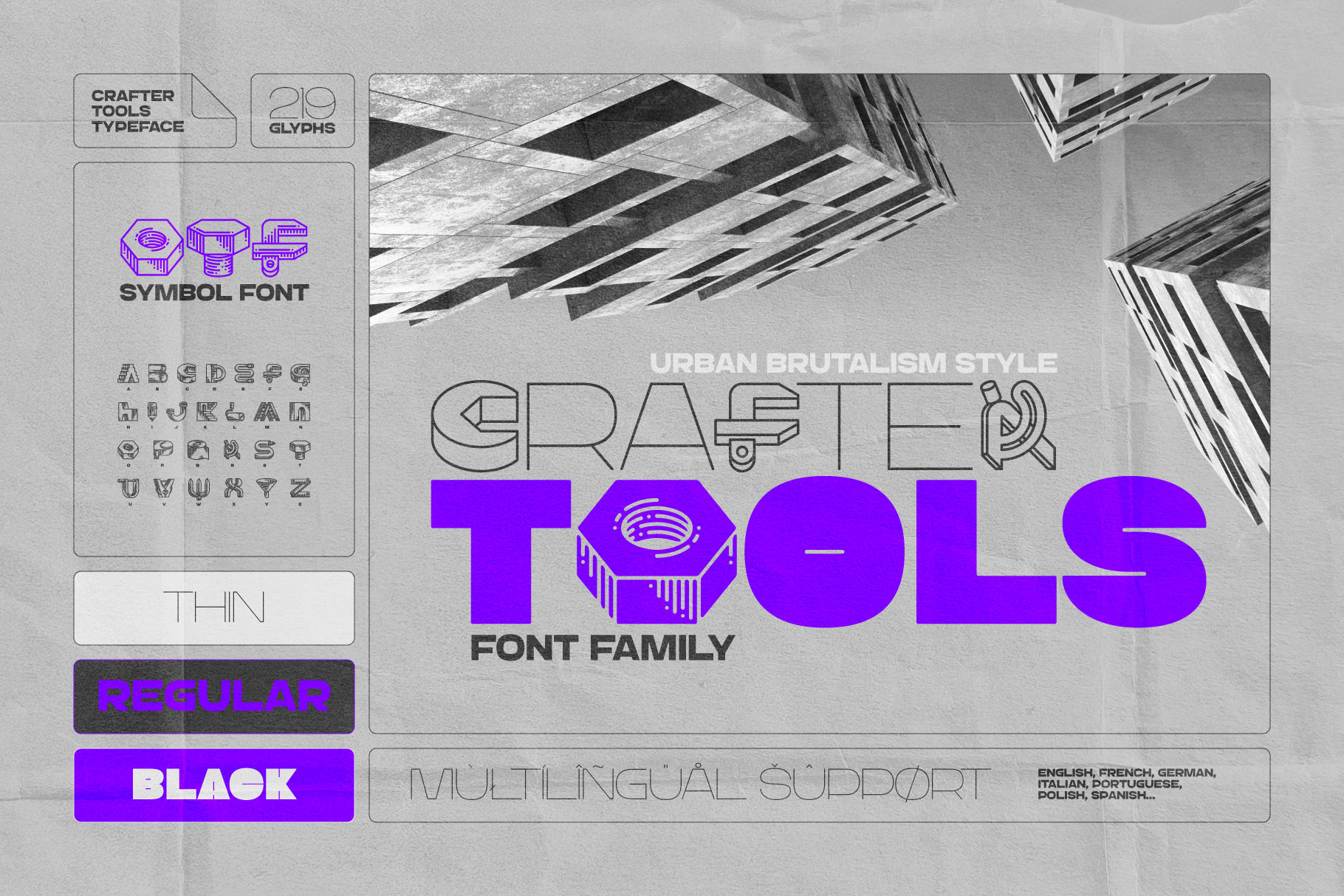
Crafter Tools Font Family
Introducing an original font set named Crafter Tools. This font features symbol-like letters related to a builder theme, representing various industrial instruments, urban structures, and objects.